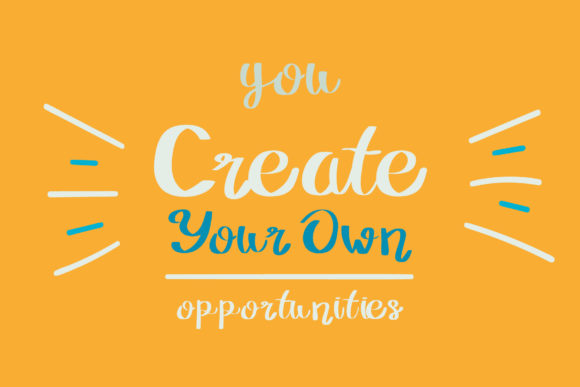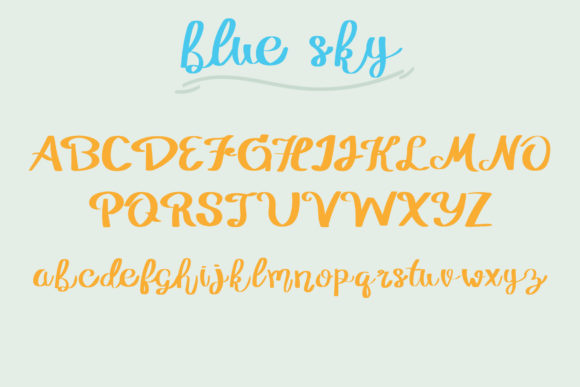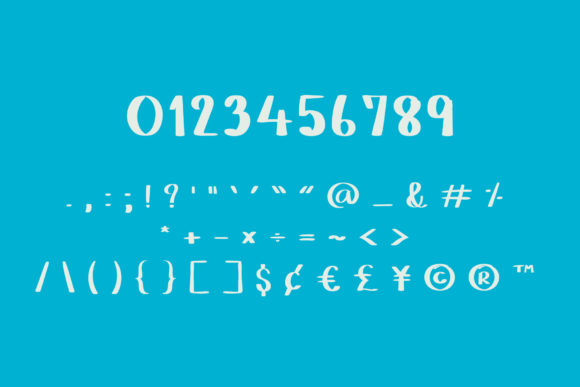
Introduction to Blue Sky Font
Blue Sky is a cute and casual handwritten font with an incredibly friendly feel.
Blue Sky will look outstanding in any context, whether it’s being used on busy backgrounds or as a standalone headline .
Key Features of Blue Sky Font